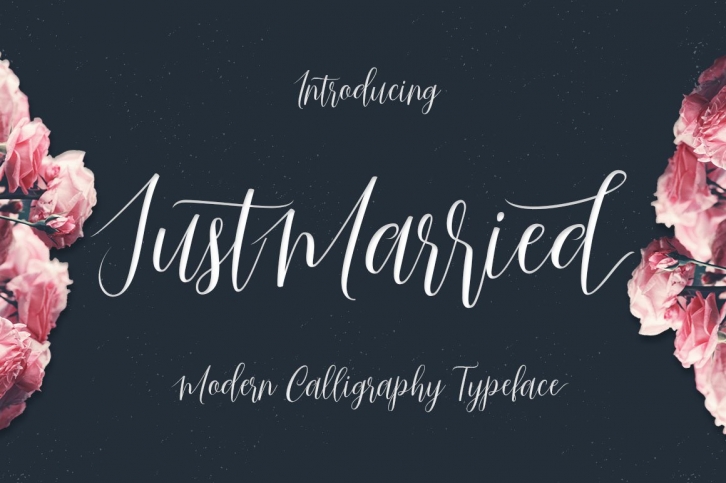
Just Married Script is a feminine font and handwritten with fun characters. Good for greeting cards, wedding invitations, quotes, posters and many other projects. ♥
You just need to enable Contextual Alternate. Usually Adobe Photoshop and other programs enable it by default. It's your signature unique and original.